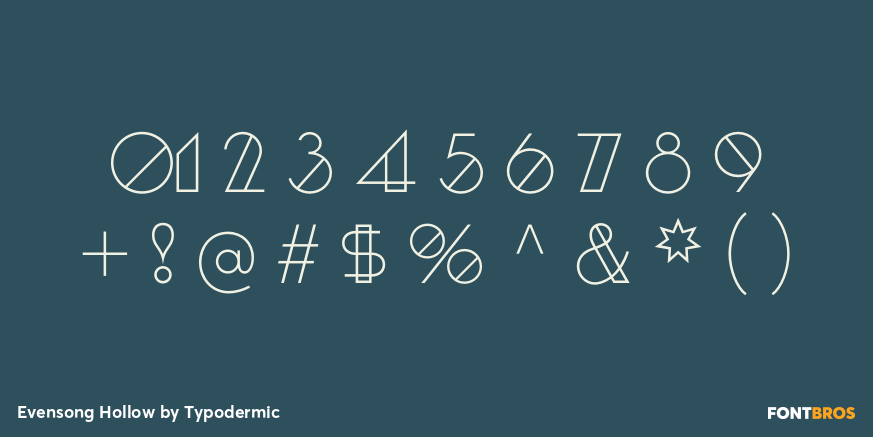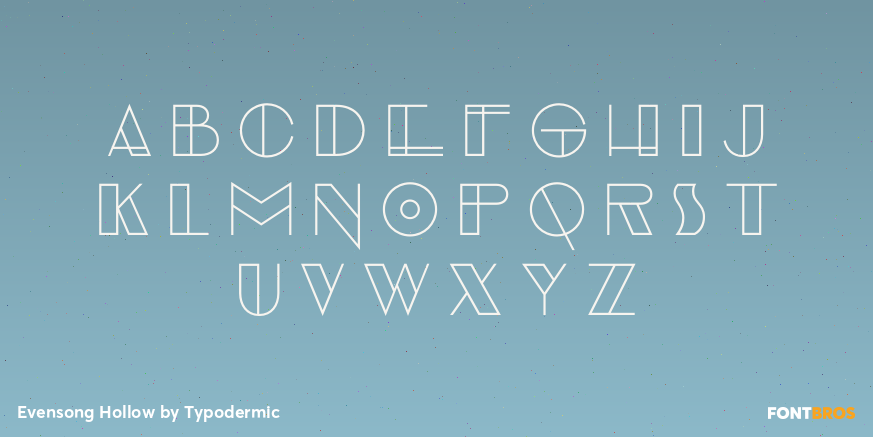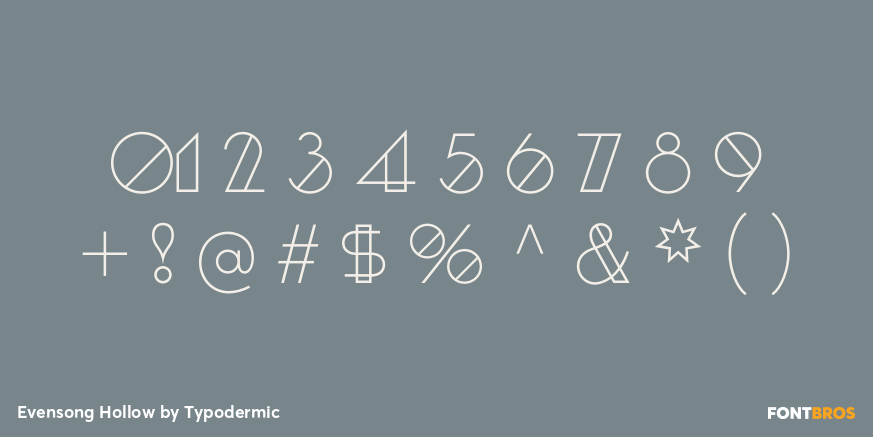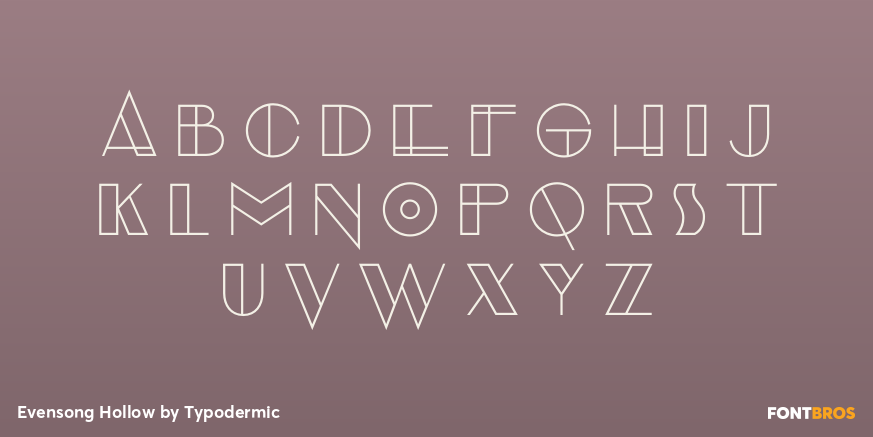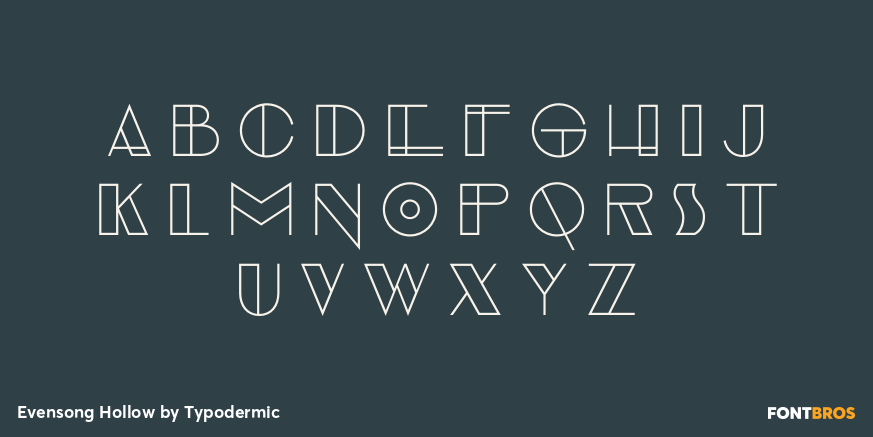
Evensong Hollow
Evensong Hollow is the open-line version of Evensong. It traces the edges of the broad strokes while retaining the design’s fine linear elements, turning the family’s unconventional thick-and-thin contrast into a network of contours. Used alone, it creates airy Art Deco display lettering that allows paper, photography, or background color to remain visible through the heavier parts of each character.
Use Hollow for runway invitations, fashion-editorial headings, fragrance graphics, salon windows, and decorative-arts exhibition titles that need a lighter visual presence. It also works as a framework for Evensong Fill: set both layers with the same text, size, and position to place a separate color or treatment inside the outlined heavy sections while keeping the delicate linework clearly defined.